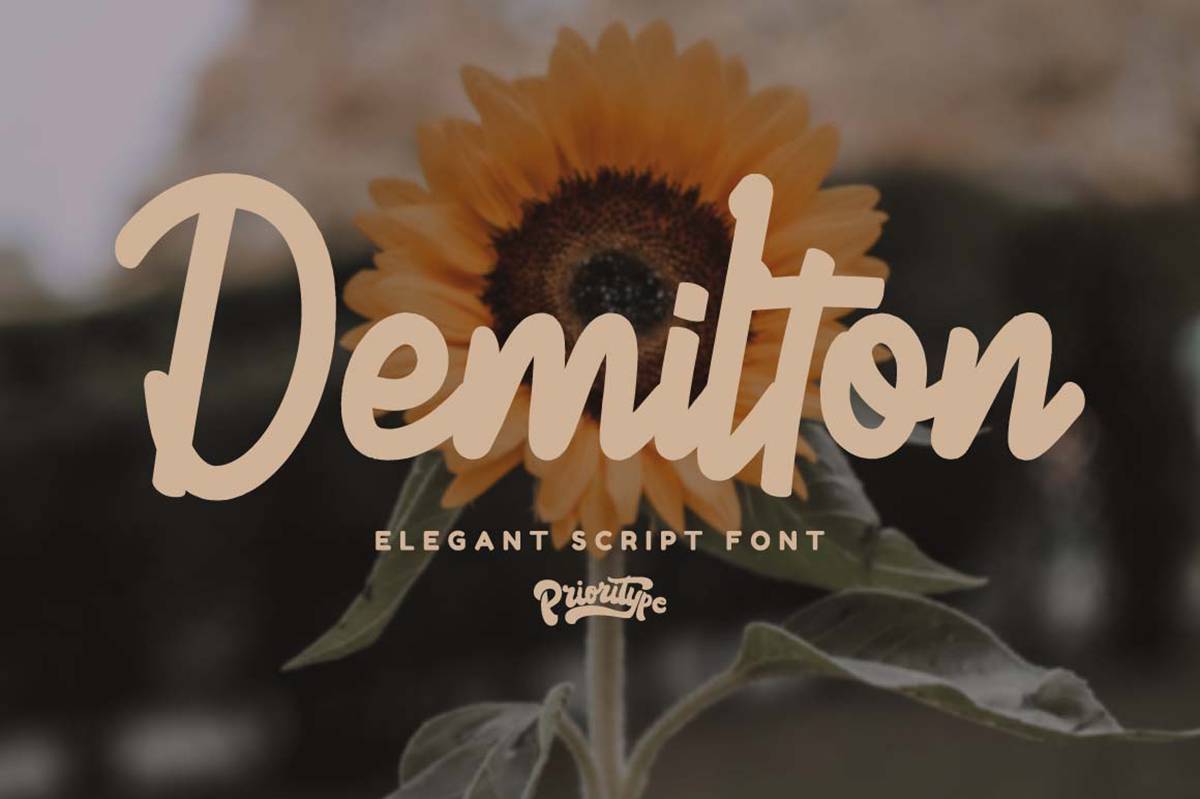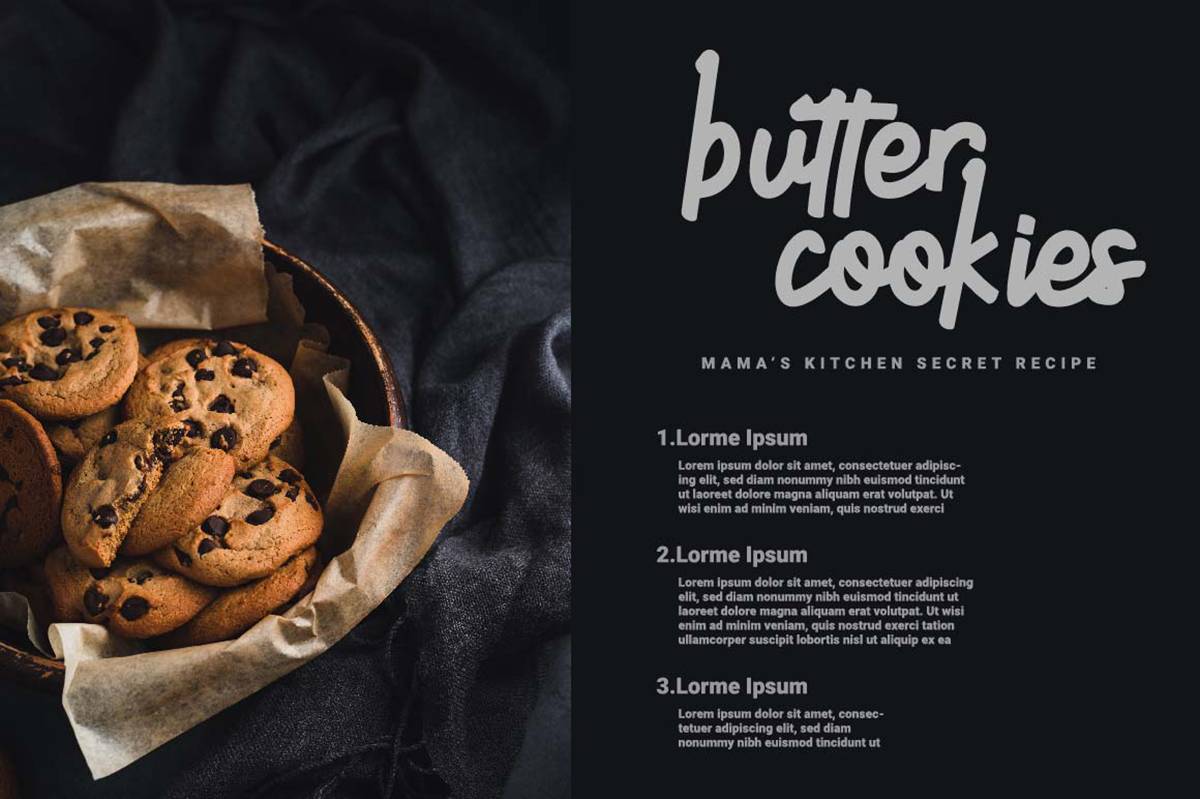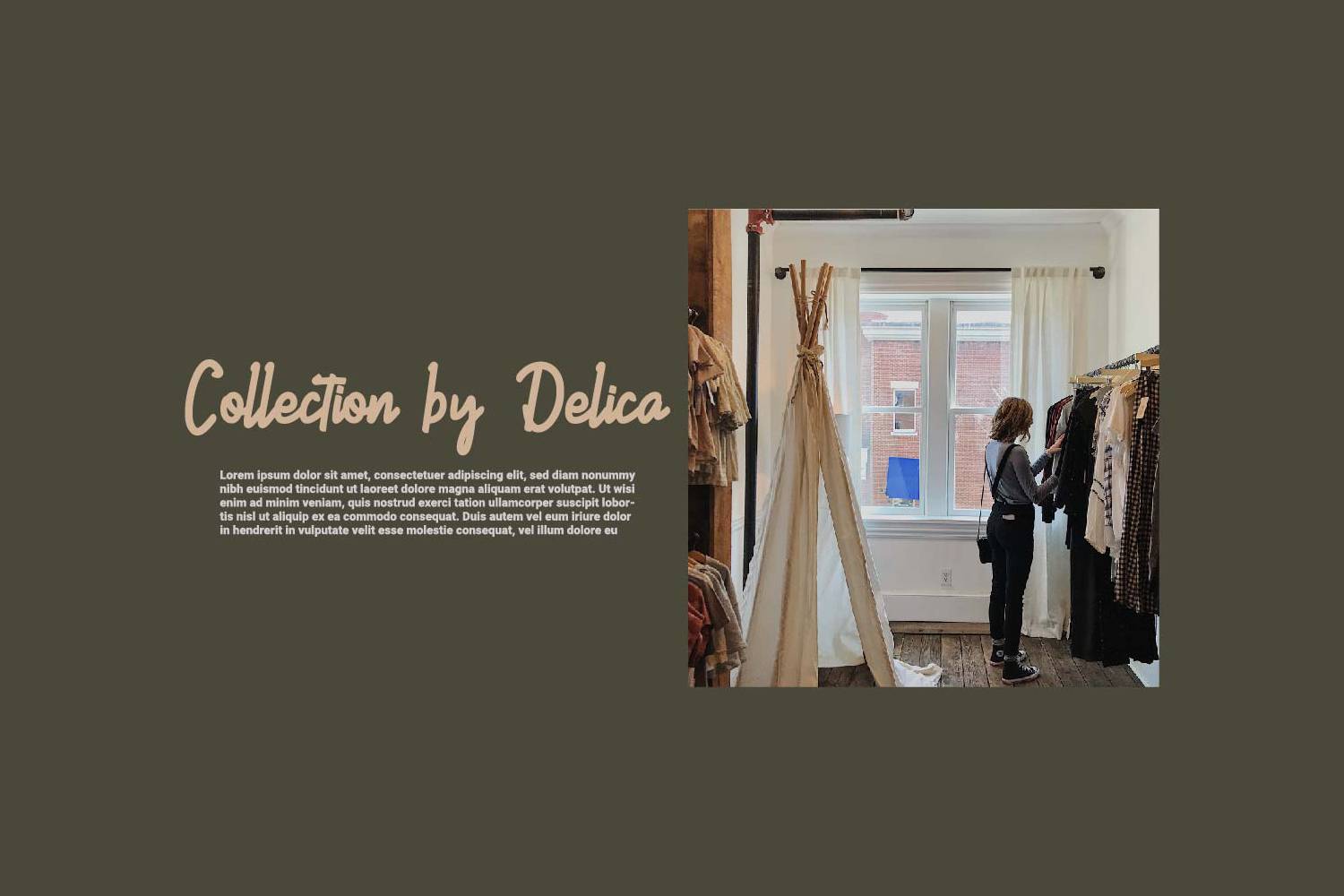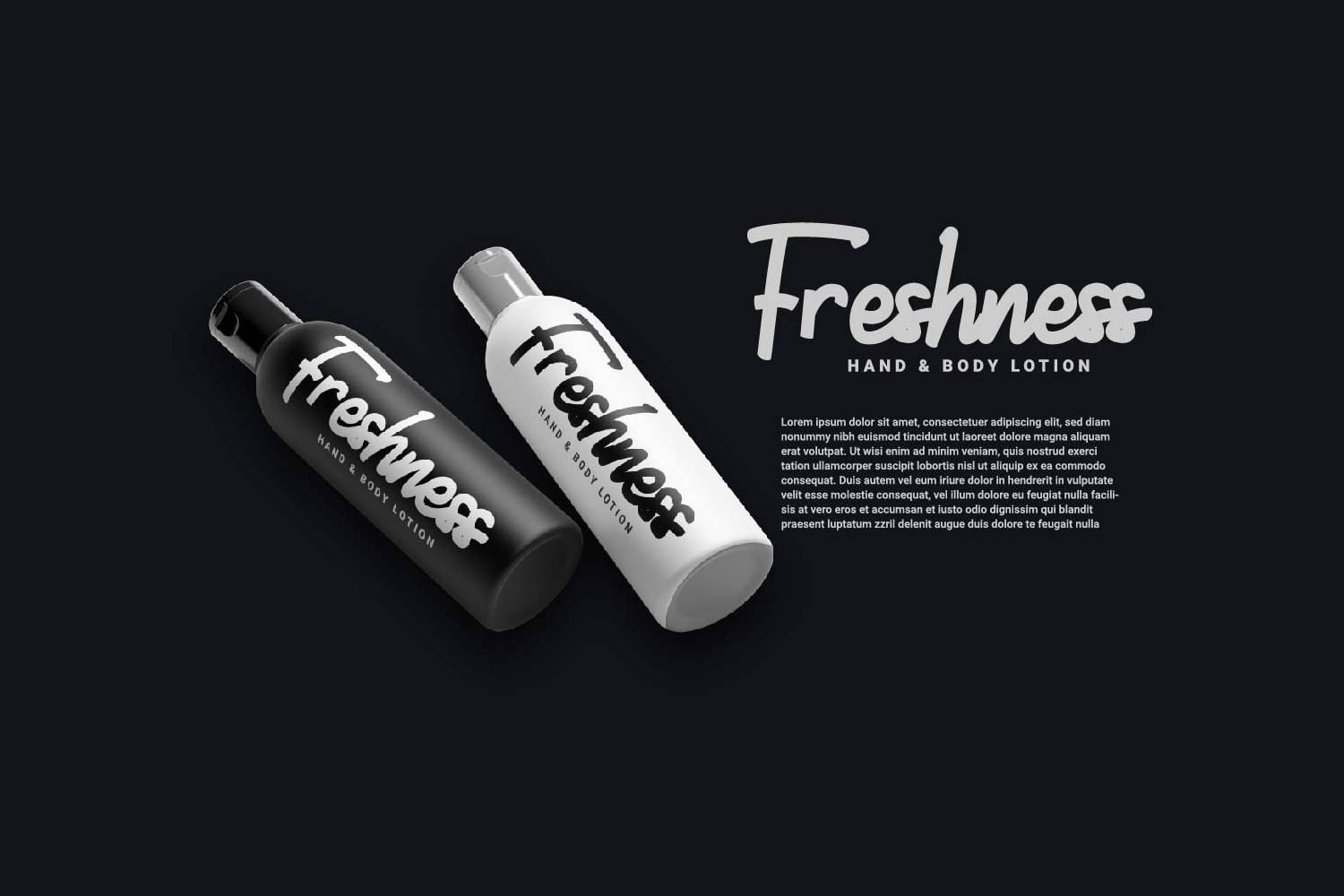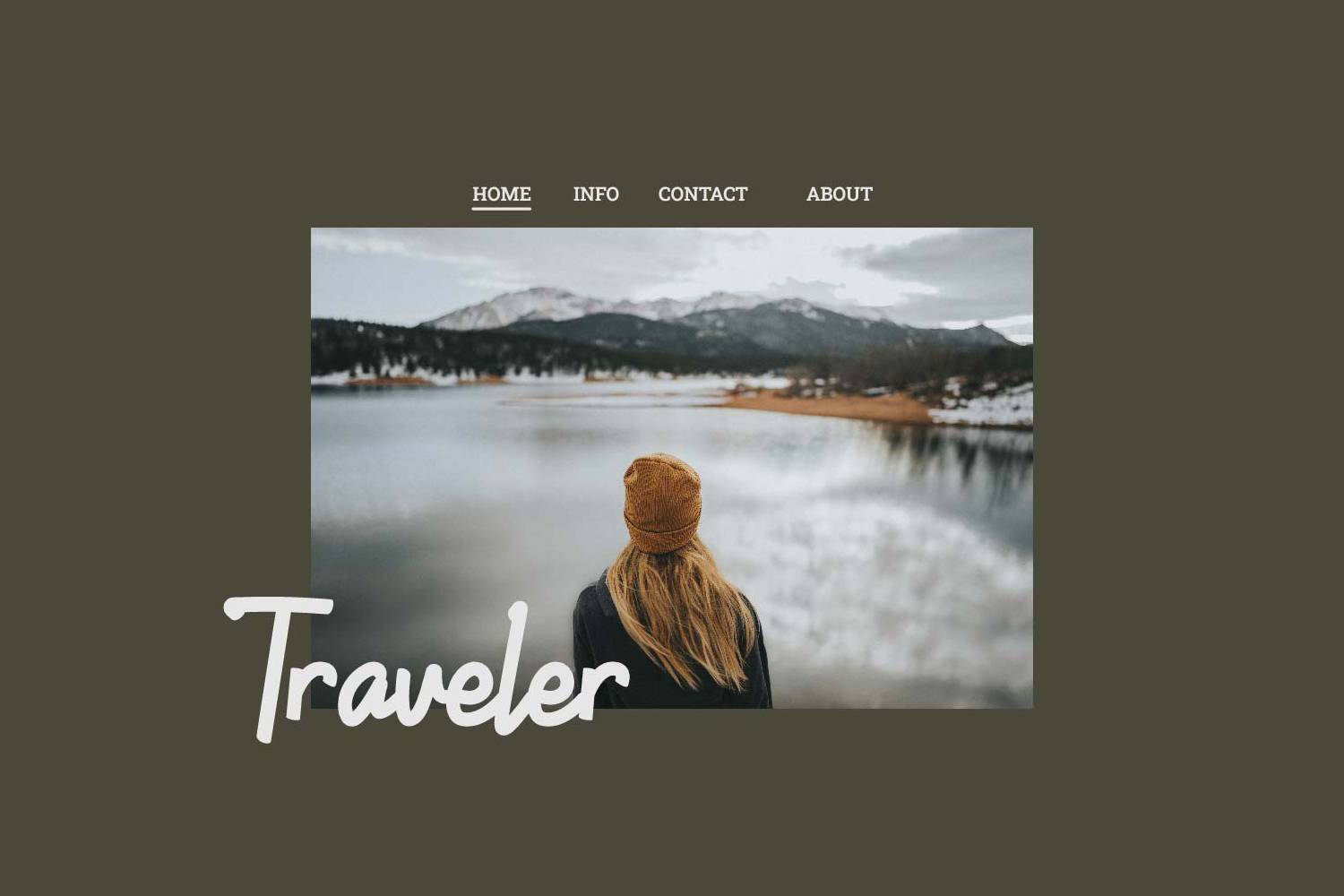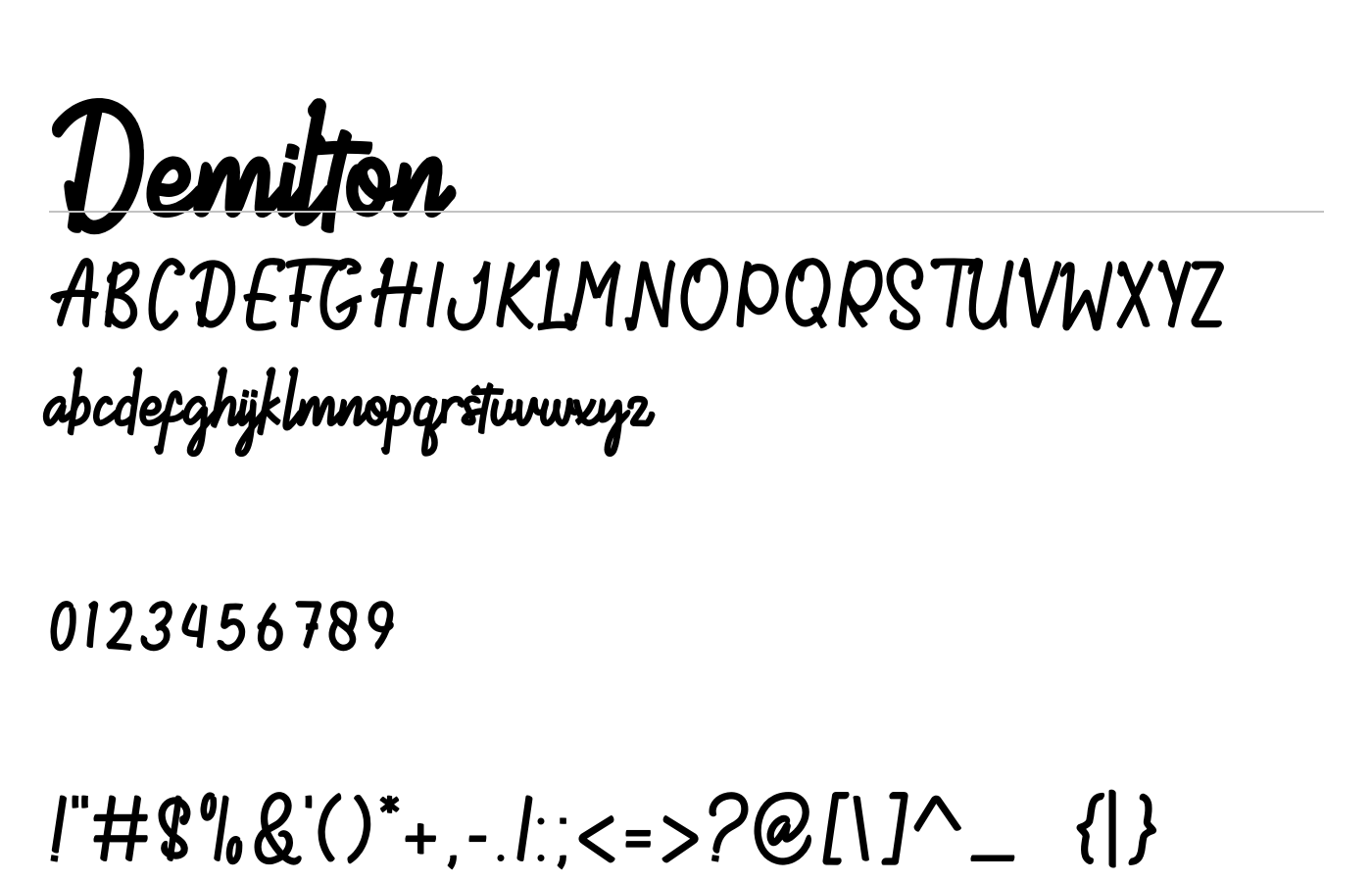
Demilton is a playful and casual script font with a lively handwritten style, featuring smooth, rounded strokes and a friendly, approachable feel. Its moderate weight and slightly condensed letterforms make it great for adding a personal, informal touch to branding, invitations, and creative projects where warmth and personality are key. Ideal for logos, posters, and headlines, Demilton brings an energetic yet relaxed vibe that connects well with audiences seeking a fun and authentic look.
| Font family | Demilton Font |
| Release date | 2020-12-26 |
| Designer | Prio Nurokhim Aji |